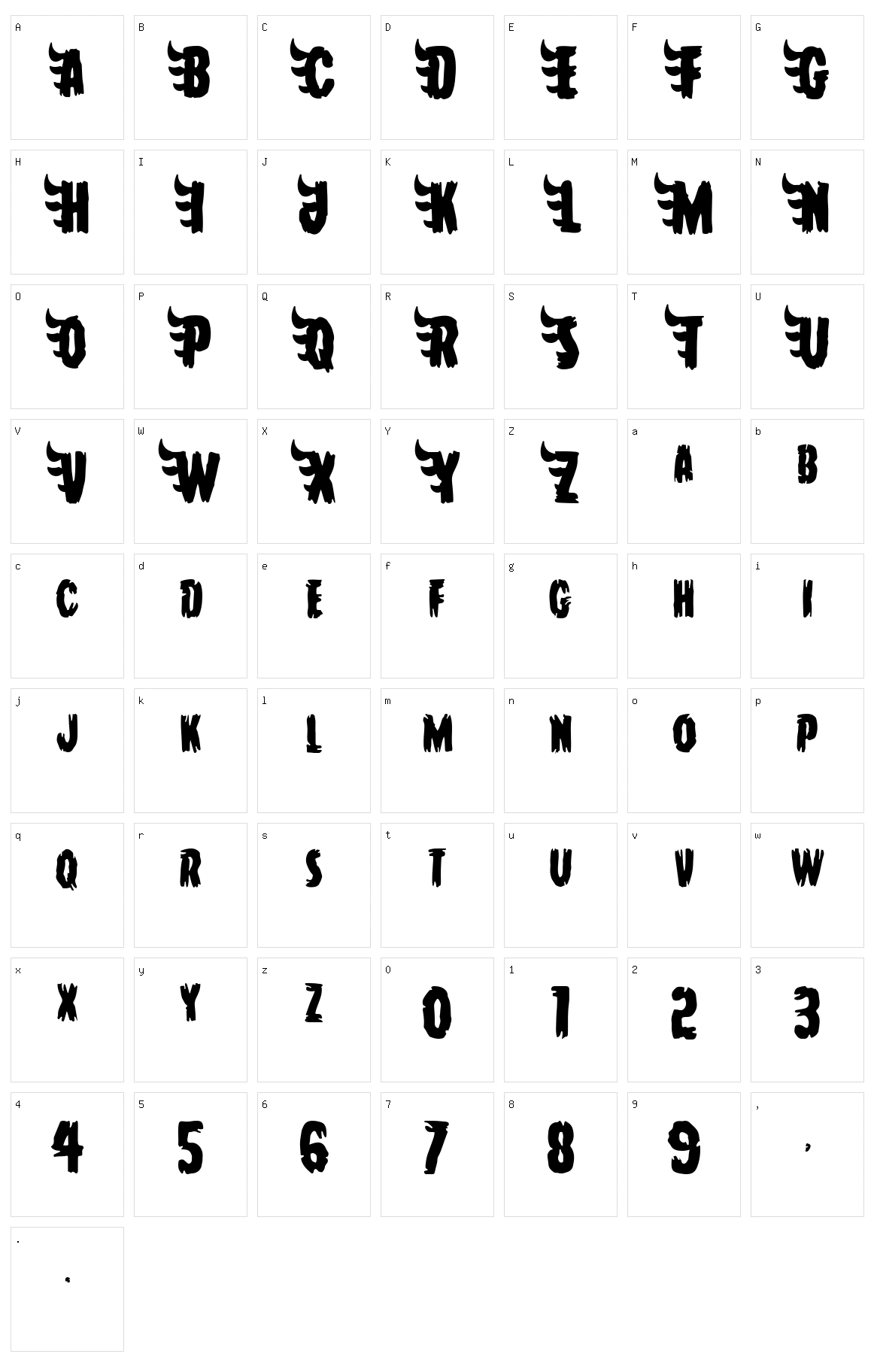
The free font Hah Sem is carefully designed by Arendx Studio, showcasing a thoughtful balance of creativity and usability and falls under the Eroded font style. When you download the ZIP file, it contains only 42.29 KB of font files, making it lightweight and quick to download. Please review the license details below to understand permitted usage and distribution rights. If license information is not available, we recommend using this font for personal projects only or contacting the author directly for commercial usage permissions.